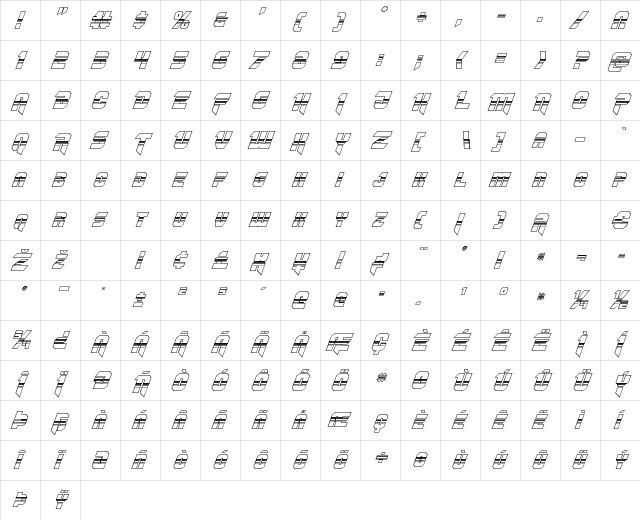
OmegaForce Halftone 3D Italic Italic
Design Context for OmegaForce Halftone 3D Italic Typeface
OmegaForce Halftone 3D Italic has the bold swagger of sports branding: strong, assertive letterforms designed to dominate headlines and jerseys alike. Its italic angle brings a sense of urgency and motion to the letterforms.
Built for sports team identities, athletic apparel, event posters, and high-energy promotional material.
Pro Tip: OmegaForce Halftone 3D Italic thrives on contrast — try it large, bold, and tight against a clean background for maximum visual impact.